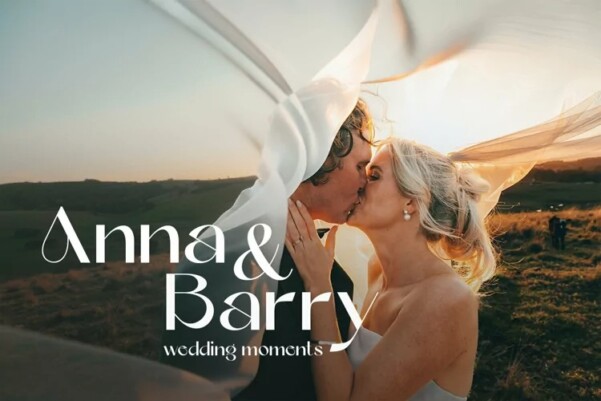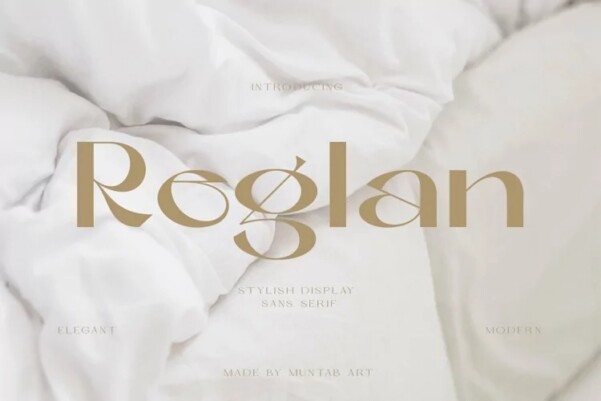
Reglan Font
Reglan fonts includes uppercase letters, lowercase letter, numerals, a large range of punctuation. Serif font with modern stylish style. Created for poster, web design, branding, illustrations, badges and some other works.